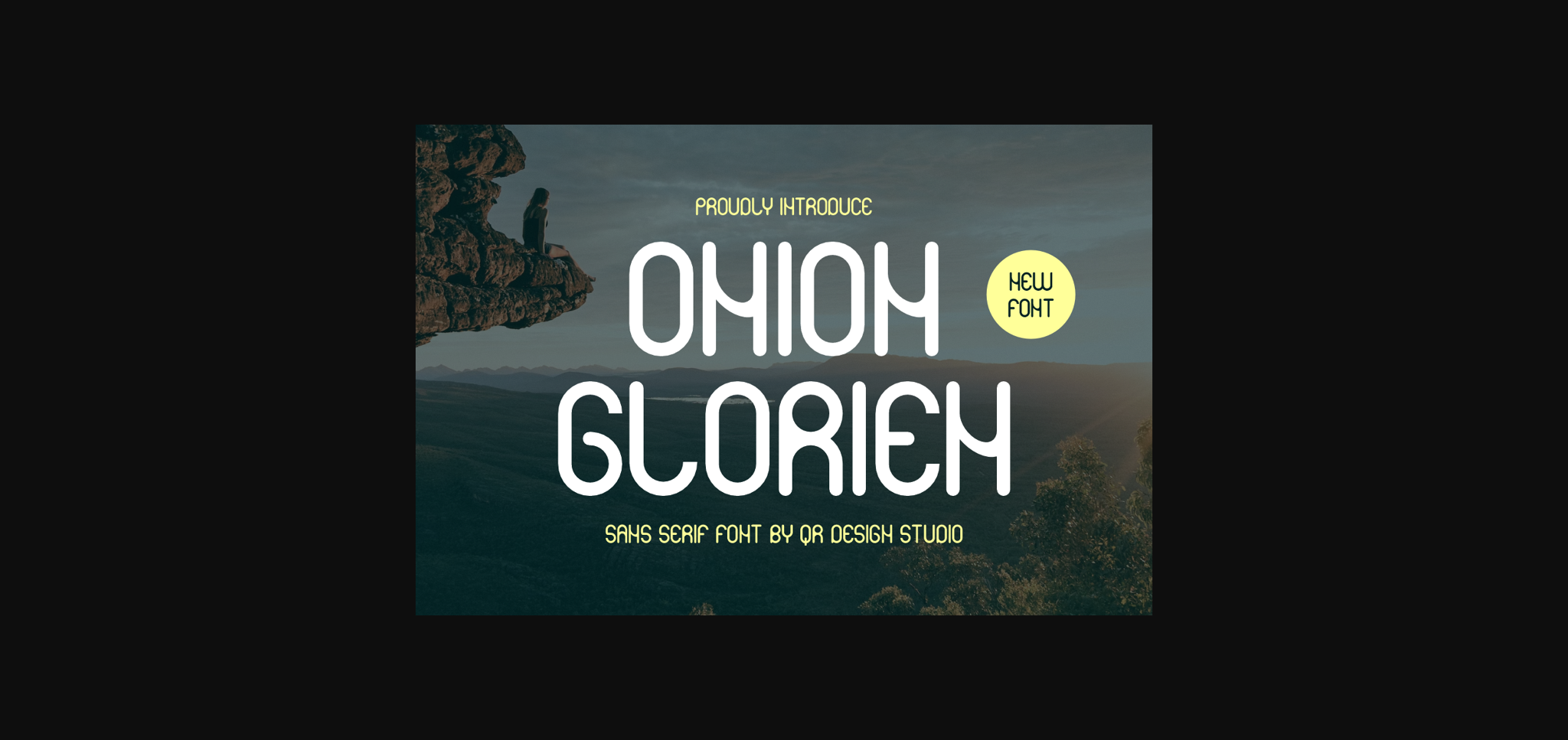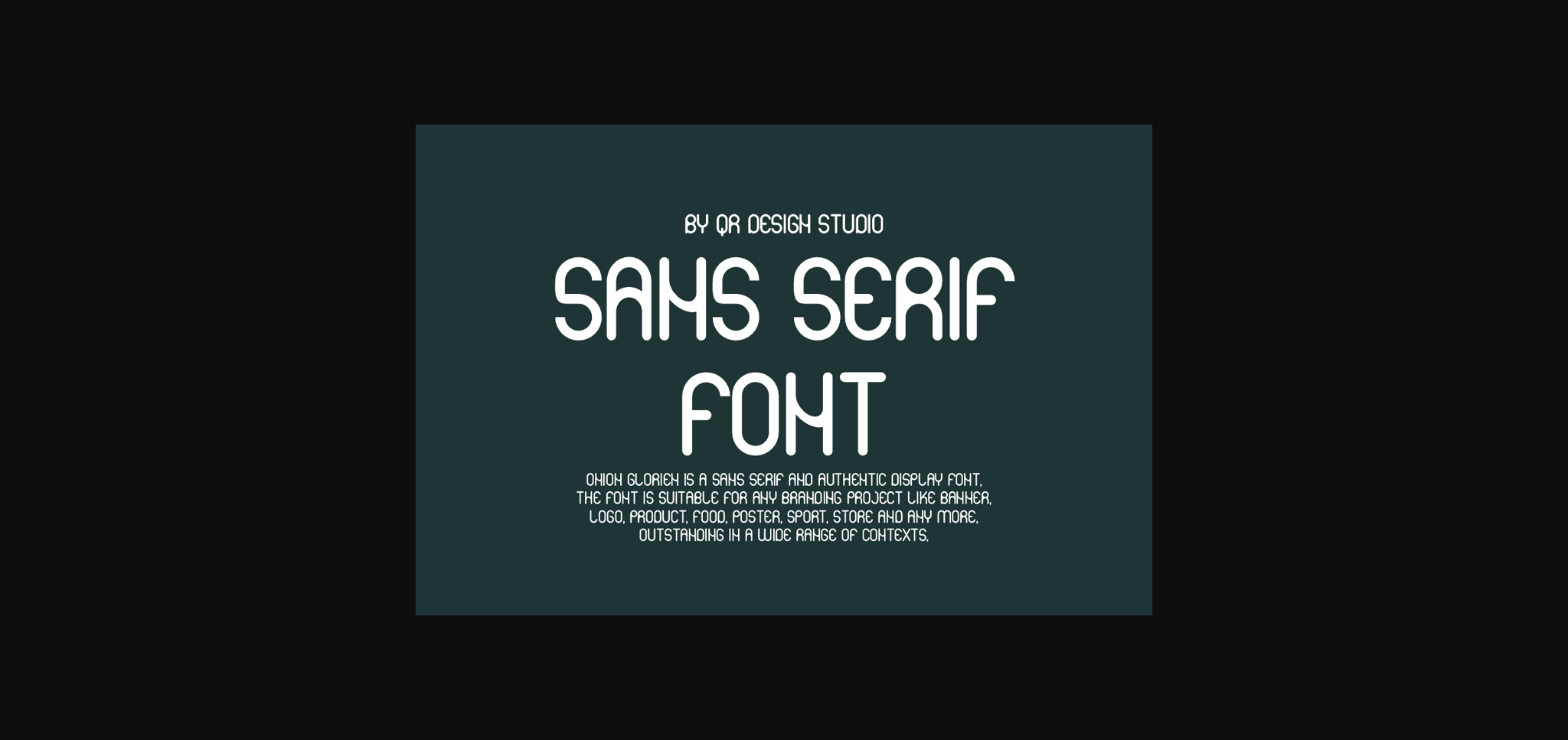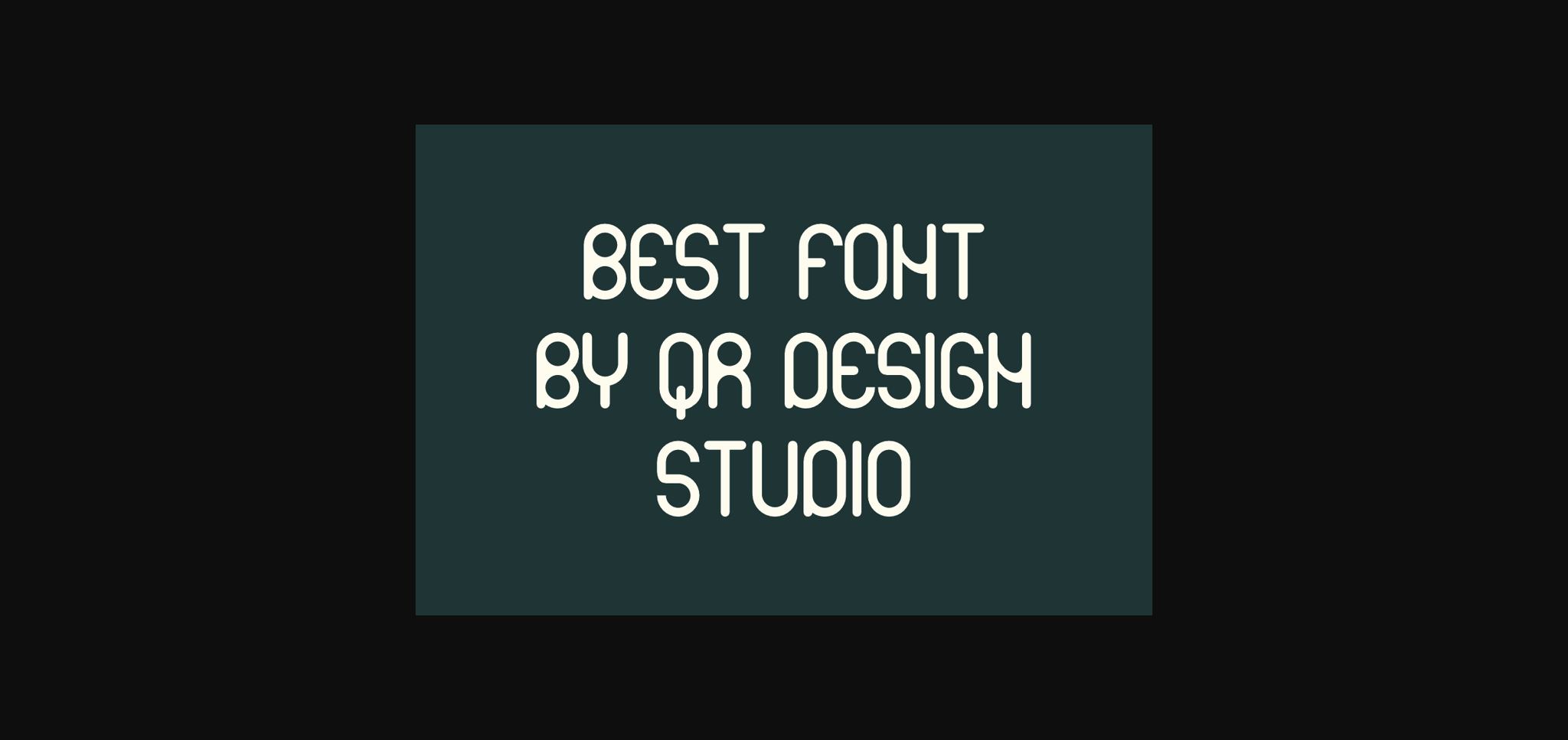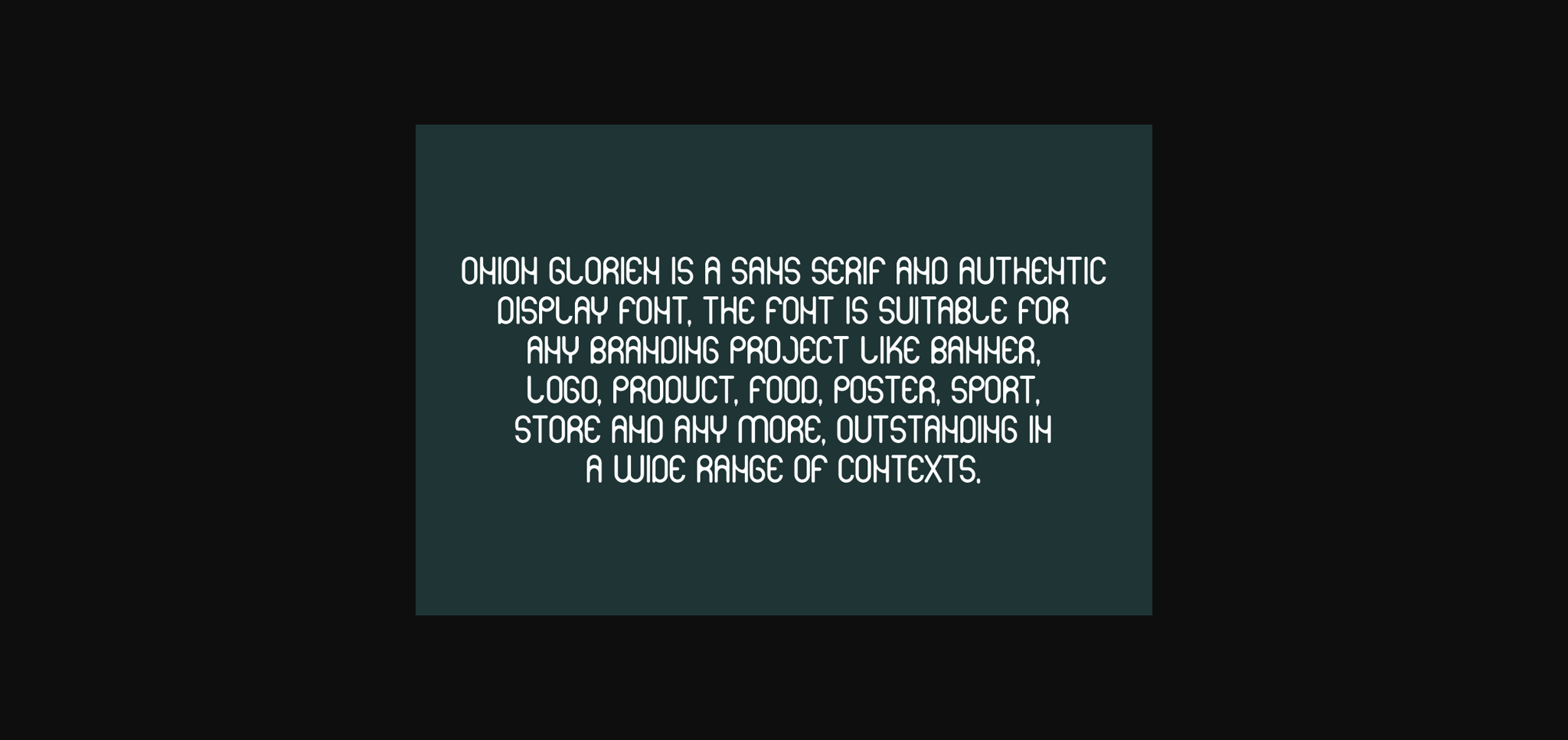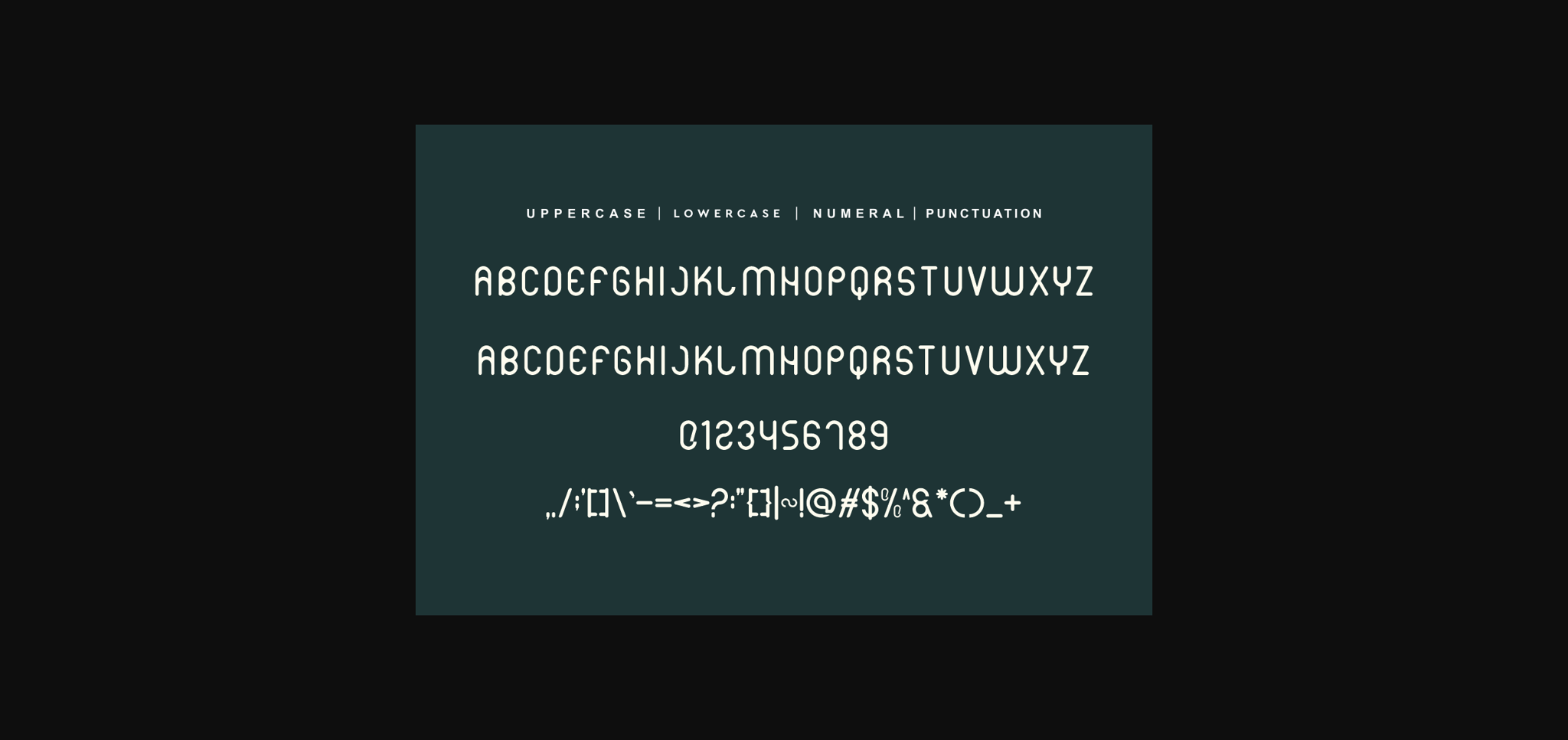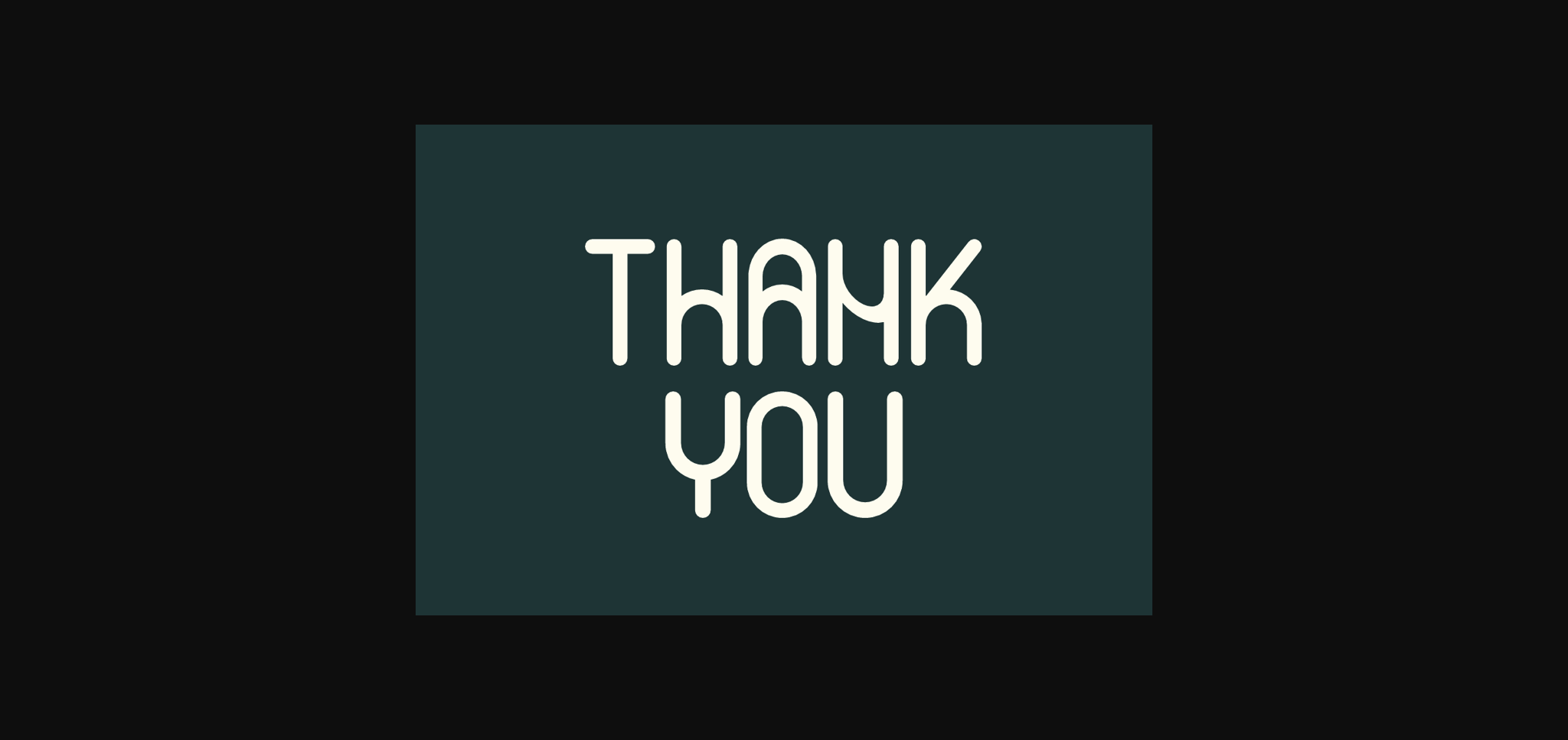
About Onion Glorien Font
Onion Glorien Font is a modern and authentic display font.
The font is suitable for any branding project like logo, sport, and many more.